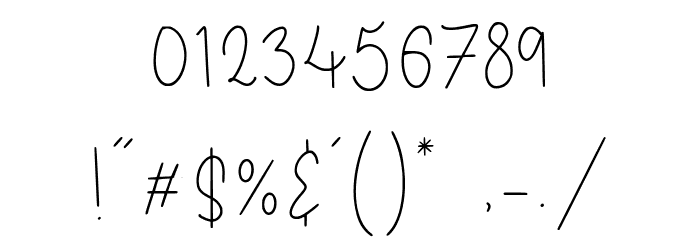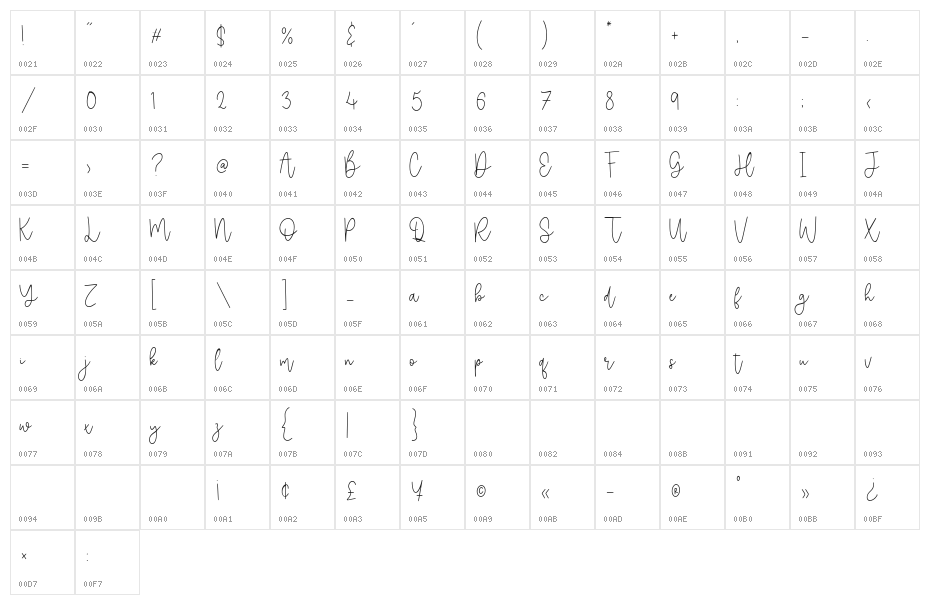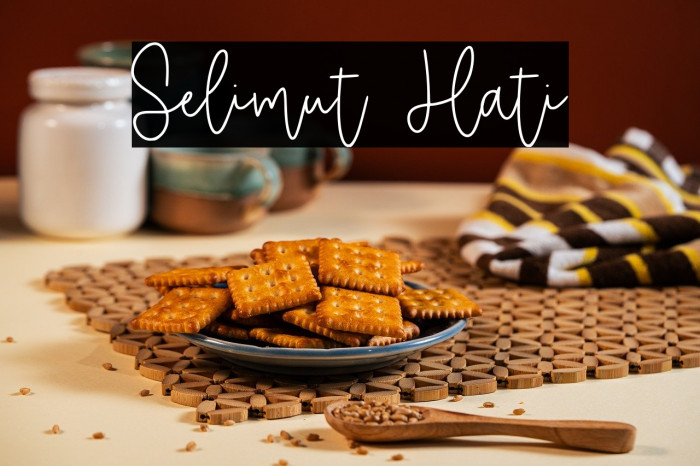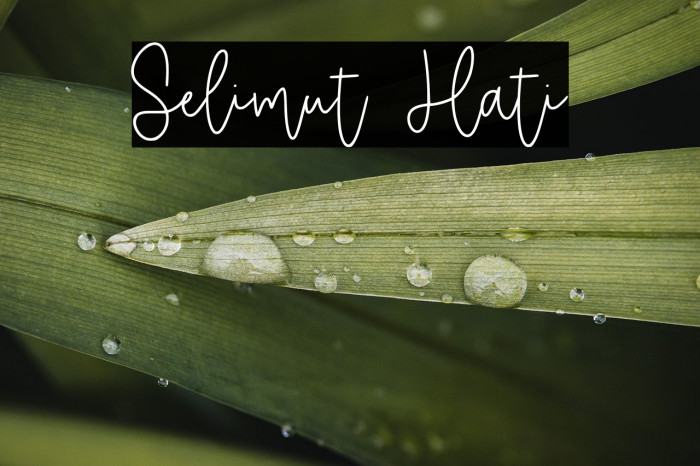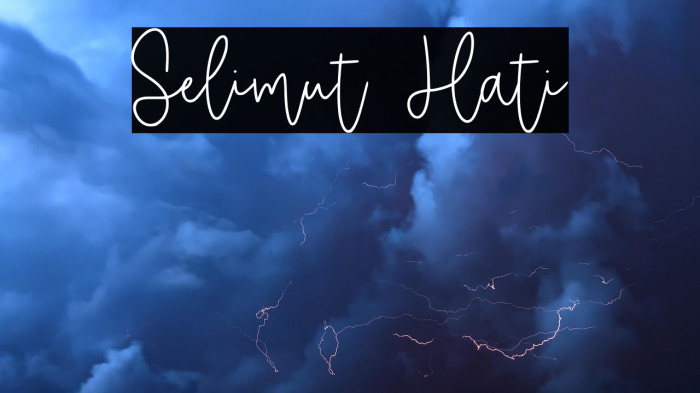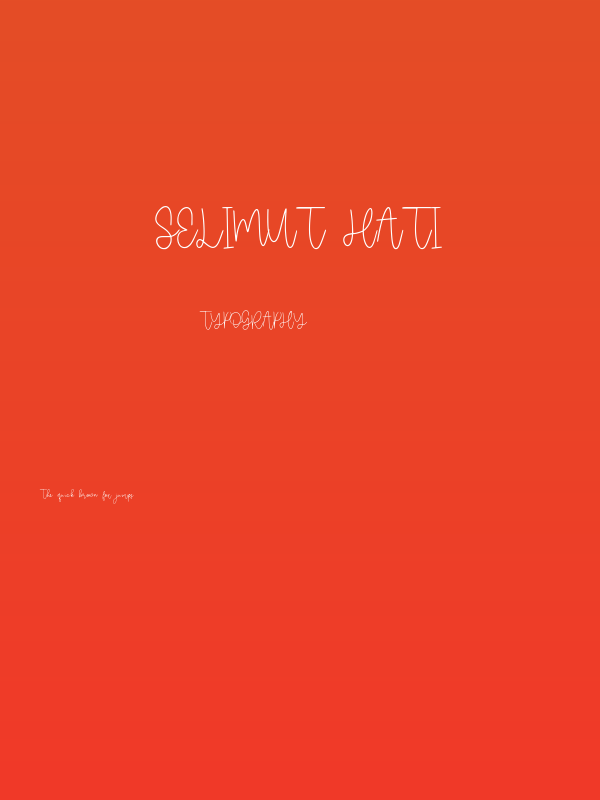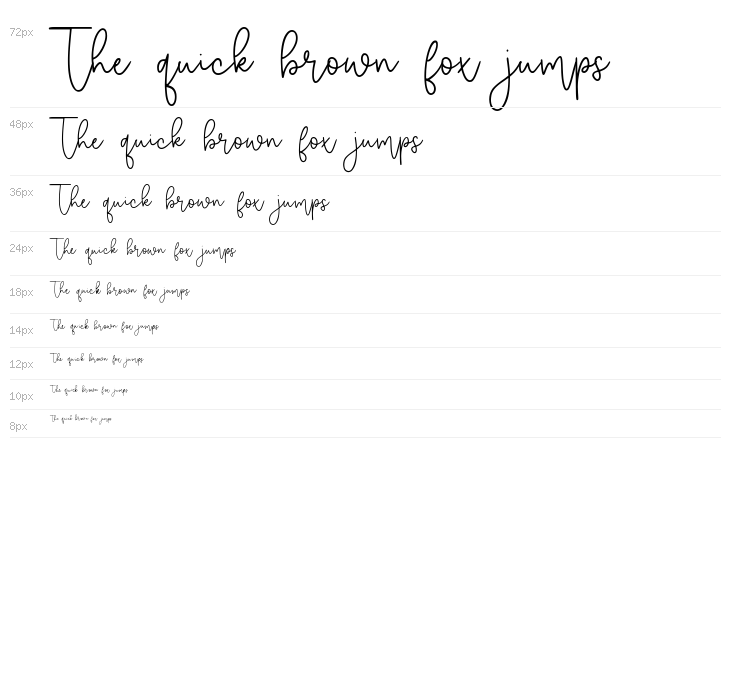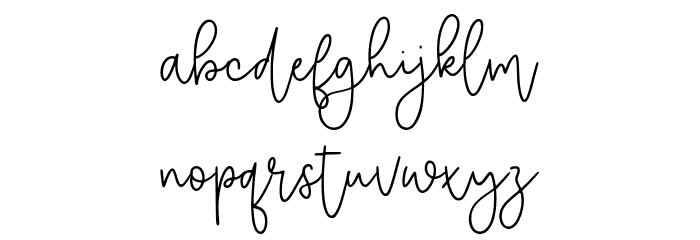
Selimut Hati Font
Selimut Hati Description
This font features a playful and elegant handwritten style, characterized by smooth, flowing lines and a casual yet sophisticated appearance. The uppercase letters are tall and slightly narrow, with a consistent stroke width that gives them a clean and modern look. The lowercase letters are more fluid, with loops and curves that add a touch of whimsy. Numbers and special characters maintain the same fluidity, ensuring a cohesive look across all text. This font is perfect for projects that require a personal touch, such as invitations, greeting cards, or branding materials.
| Proposed Projects | Ideal for invitations, greeting cards, branding, and personal projects. |